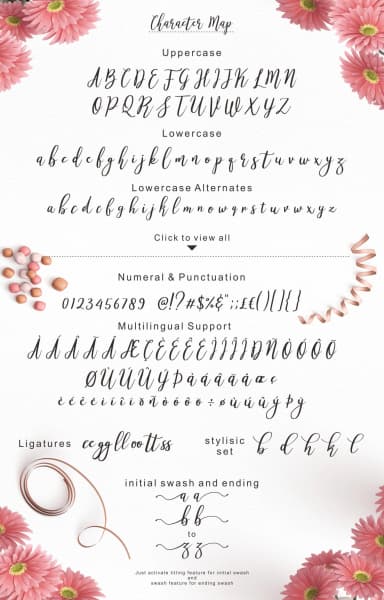
1 / 7About Mellisa Font
Mellisa Font by Lettersiro Co. is a flowing handwritten script typeface characterized by expressive swashes and flourishes that infuse movement and elegance into every letter. The generous decorative details make it an excellent choice for creating sophisticated wedding invitation suites where personalization and refined aesthetics are paramount. Whether you're designing custom greeting card collections, personalized stationery sets, hand-lettered event programs, or special occasion menus, this font's ornate character captures the artistry of traditional calligraphy while remaining fully functional in digital design applications.
The typeface includes abundant decorative flourishes and swash variations that allow you to customize individual letters for maximum visual distinction. This versatility makes it particularly well-suited for boutique brand identities, custom product packaging and labels, and upscale event materials where a bespoke, handcrafted aesthetic is essential. The comprehensive character set ensures you can create unique compositions without repetitive letter patterns, giving each project its own distinctive personality.
With its romantic sensibility and intricate letterforms, Mellisa Font performs exceptionally well across both print and digital mediums. From luxury branding applications to decorative scrapbooking layouts, personalized gift designs, and artistic social media graphics, this typeface delivers handcrafted sophistication to any creative endeavor. Discover Mellisa Font on Creative Fabrica to bring artisanal elegance to your next project.
Mellisa Font is a script font that shines as a display or heading face. Pair it with a clean sans-serif or serif font for body text β the contrast creates a clear hierarchy while the two styles stay balanced and easy to read.